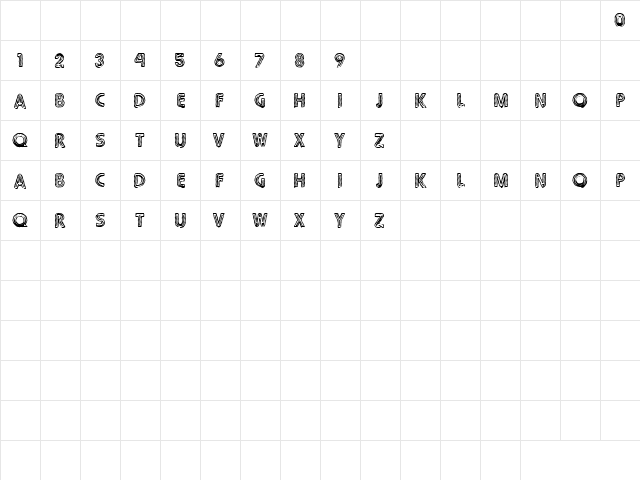
TBJ Regular
| Foundry | TBJ |
| Designer | TBJ |
Design Context for TBJ Typeface
TBJ is a composed and adaptable typeface that performs quietly and consistently across a wide range of design contexts.